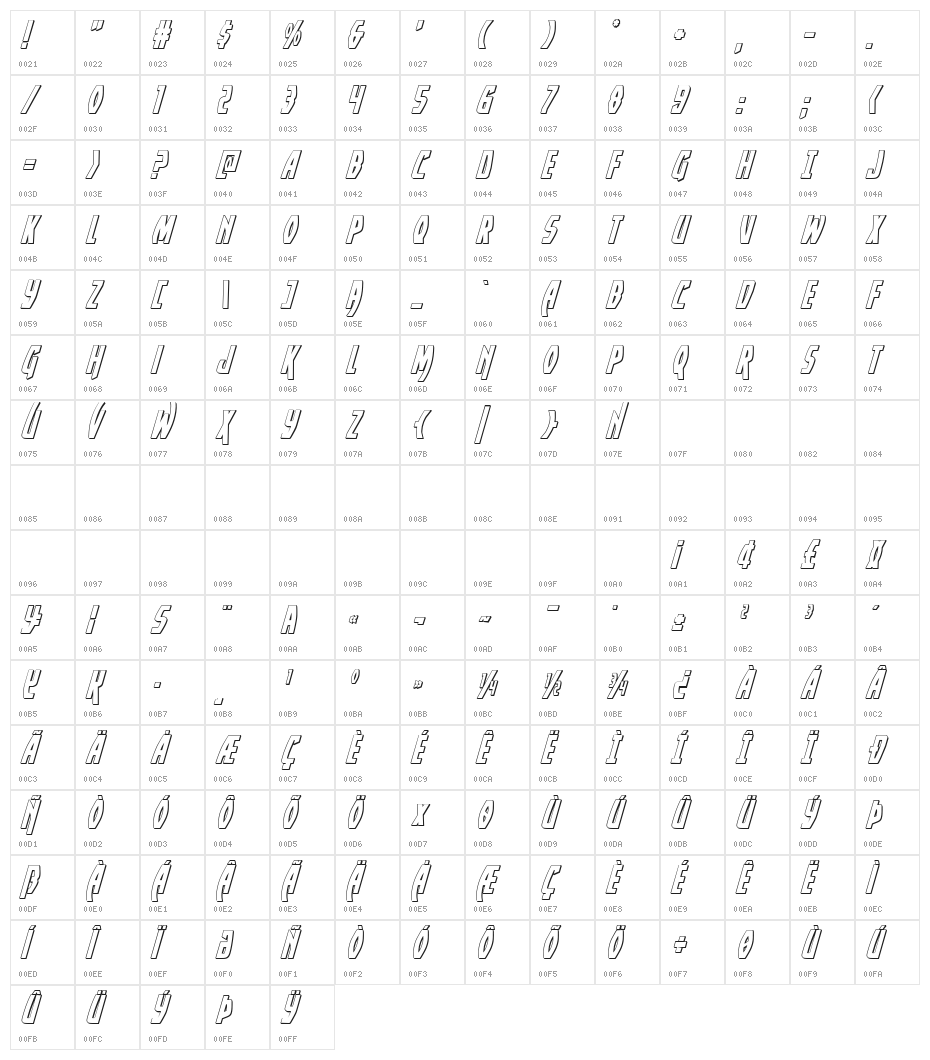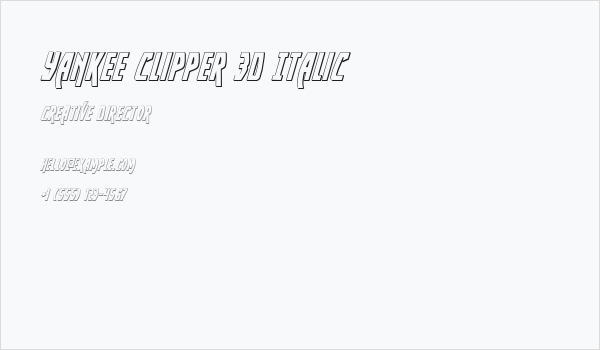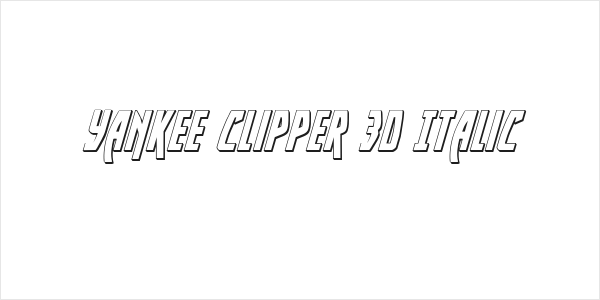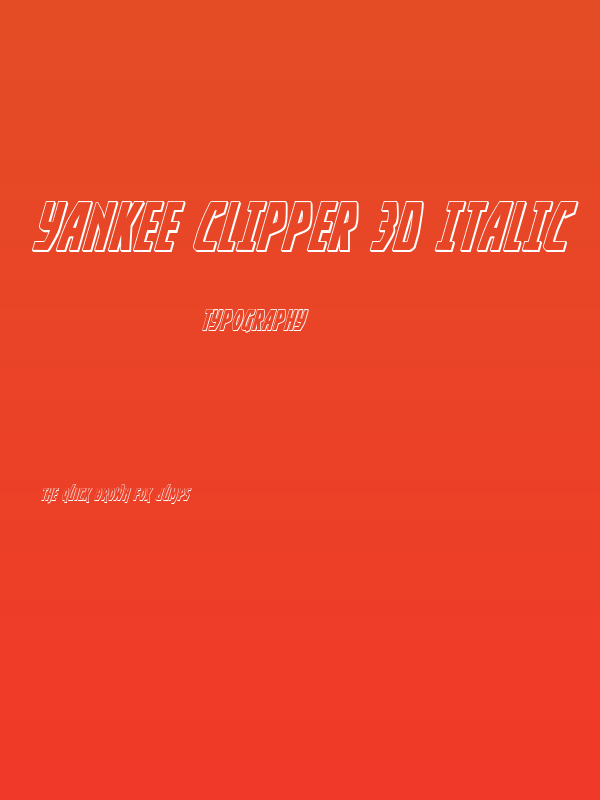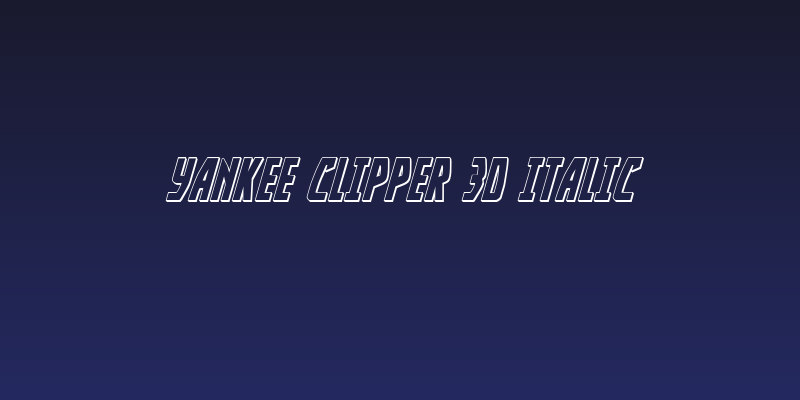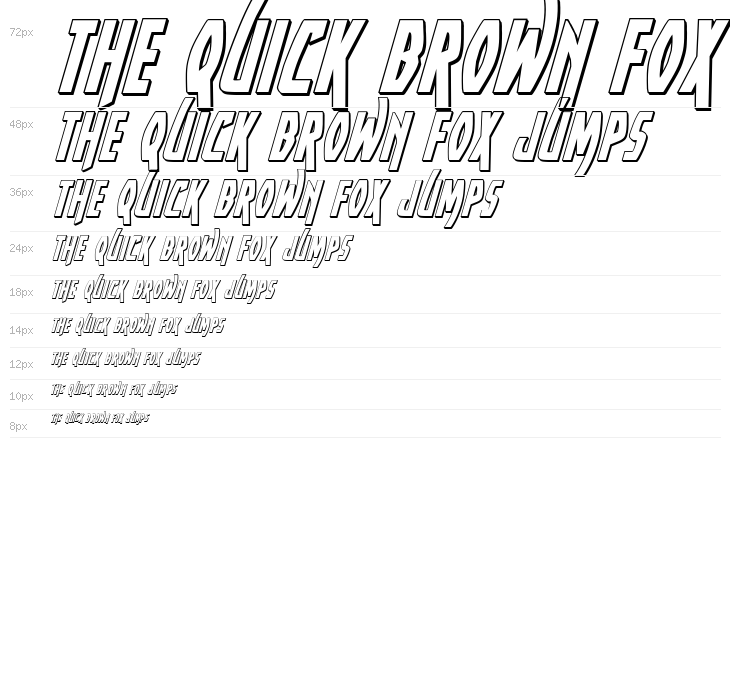
Yankee Clipper 3D Italic Font
Yankee Clipper 3D Italic Description
This font features a bold, three-dimensional design with a distinct italic slant, giving it a dynamic and energetic appearance. The characters are outlined, providing a sense of depth and movement. The uppercase and lowercase letters maintain a consistent style, with sharp angles and clean lines that enhance its modern and futuristic feel. The numerals and special characters are equally bold and maintain the same 3D effect, ensuring uniformity across all elements. This font's unique style makes it stand out, perfect for projects that require a strong visual impact.
| Proposed Projects | Ideal for sports branding, video game titles, posters, and any design needing a bold, impactful look. |